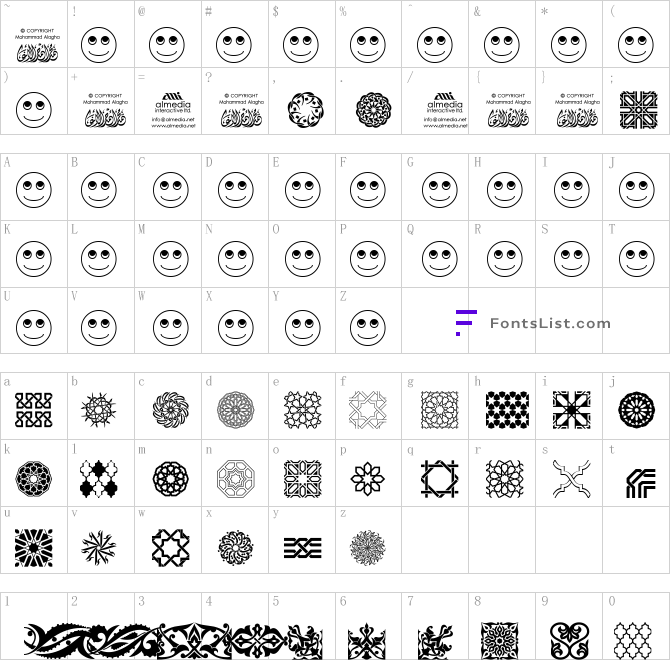
- Font Name:AGA Arabesque Free Sample
AGA-Arabesque-Free-Sample.ttf is a very beautiful artistic font, AGA-Arabesque-Free-Sample.ttf is widely used in the design and printing of various books and pictures,AGA-Arabesque-Free-Sample.ttf has a strong visual impact,AGA-Arabesque-Free-Sample.ttf is a commonly used font in newspapers, magazines and books, and is used in posters, e-commerce Poster design, store design, logo design, font design and other fields.AGA-Arabesque-Free-Sample.